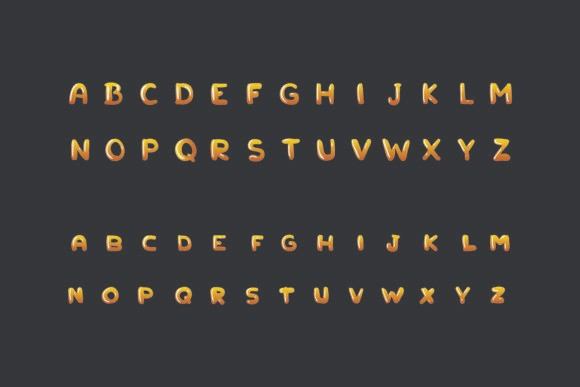
Kartoon Movie Font
Kartoon Movie Display Font is a playful and vibrant color font This font is perfect for your illustration or comic project, and even a cartoon movie project. This product is a color font (Opentype-SVG) and is compatible with PhotoShop, Illustrator, Silhouette, and Inkscape.